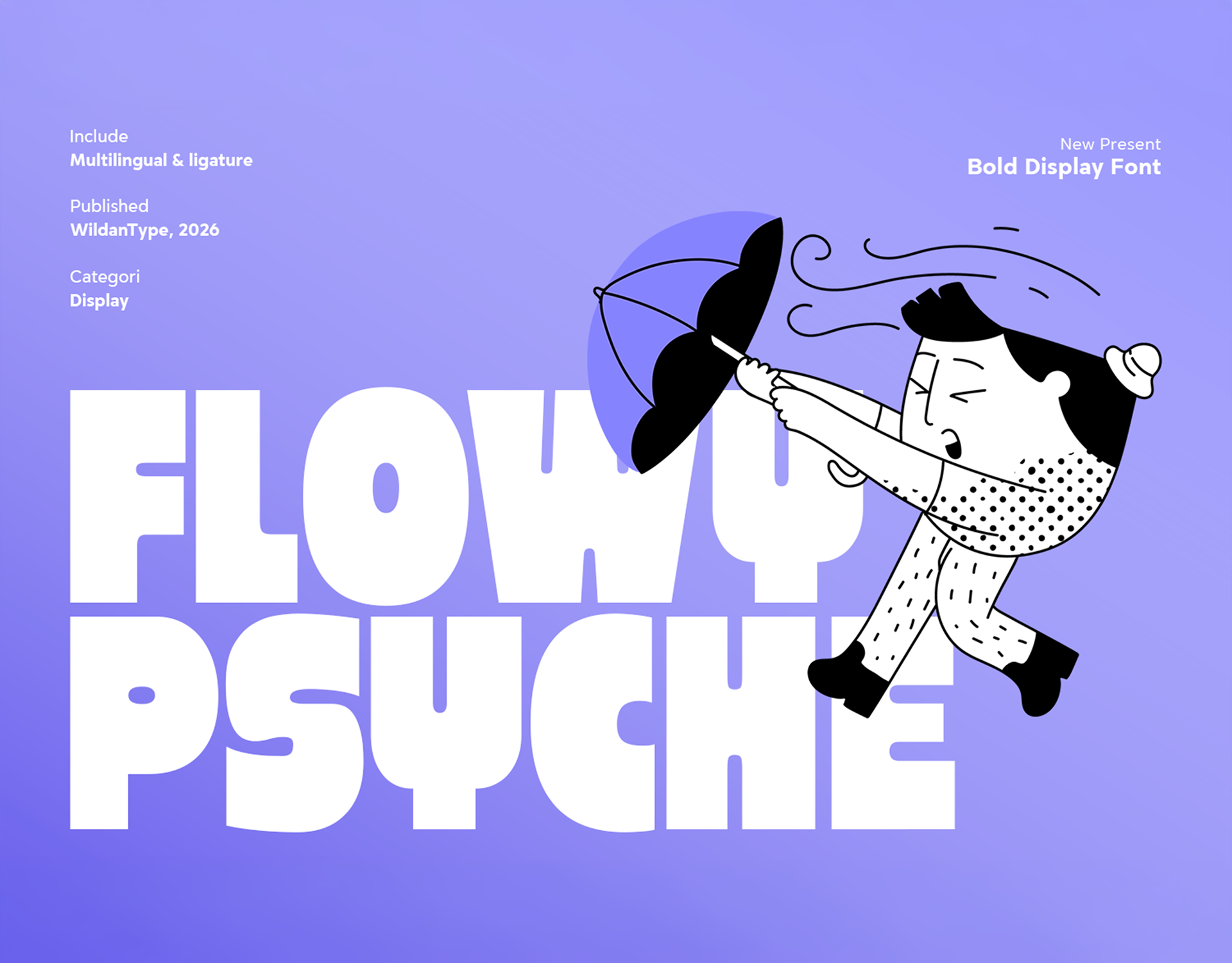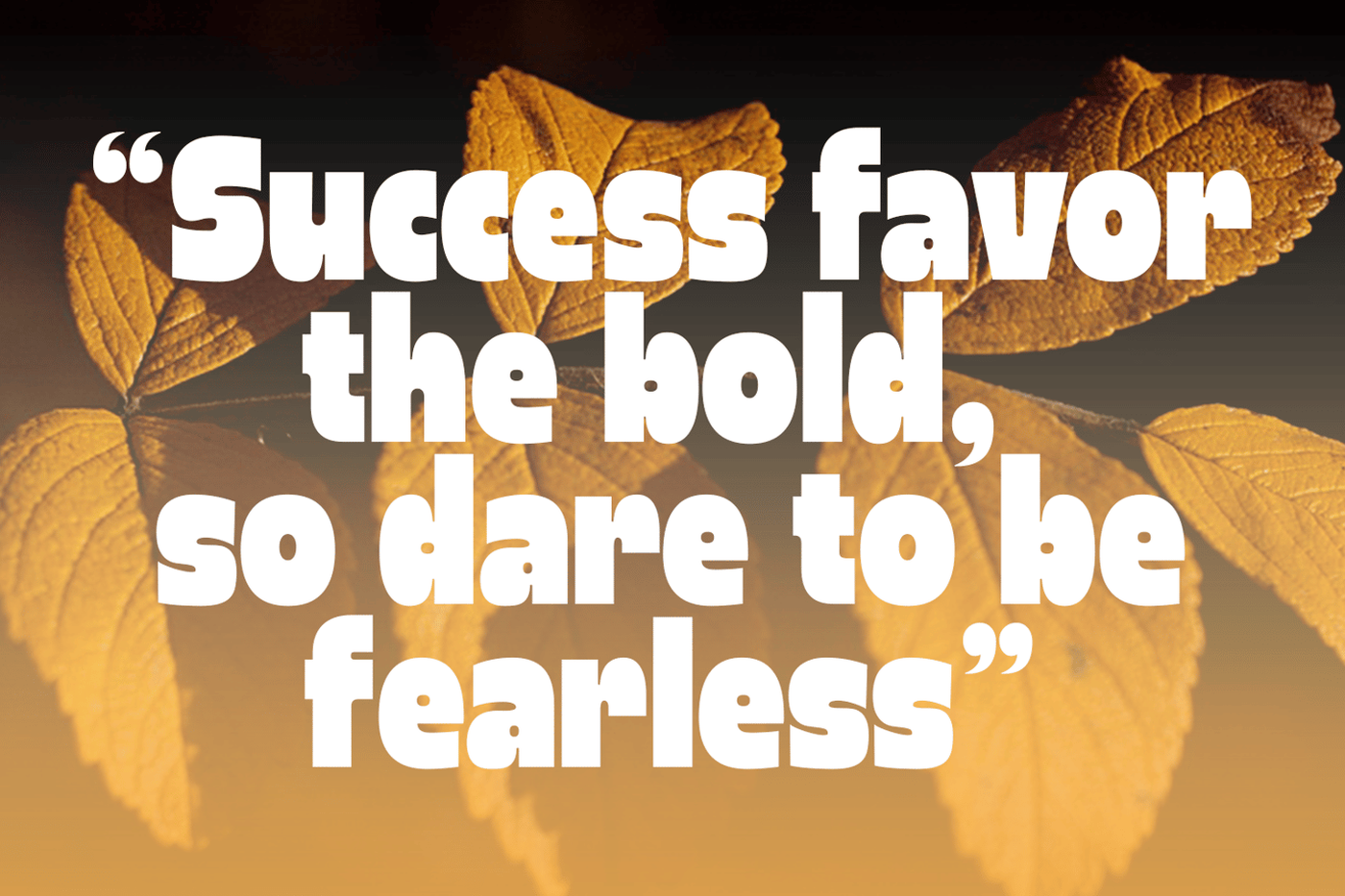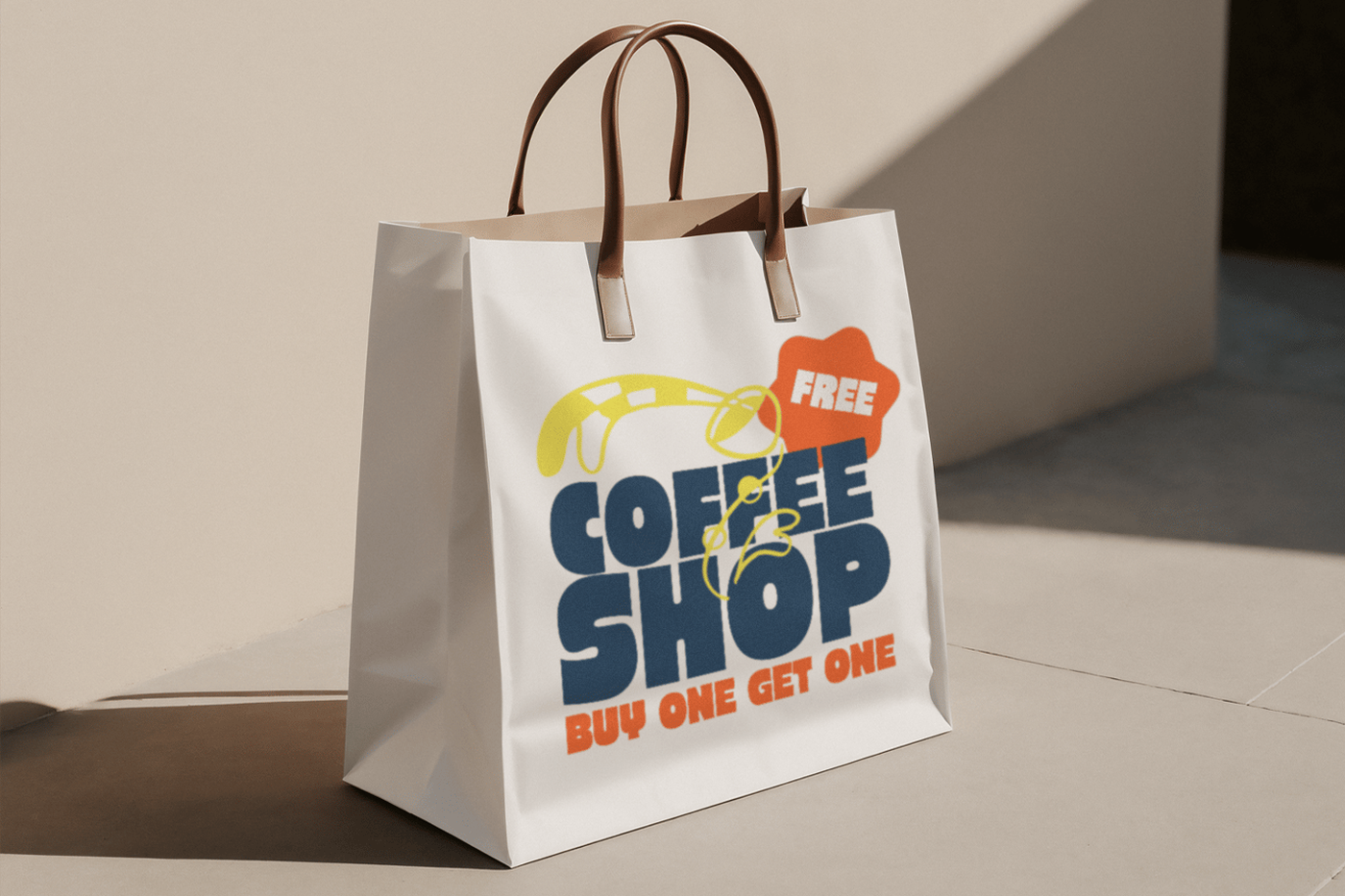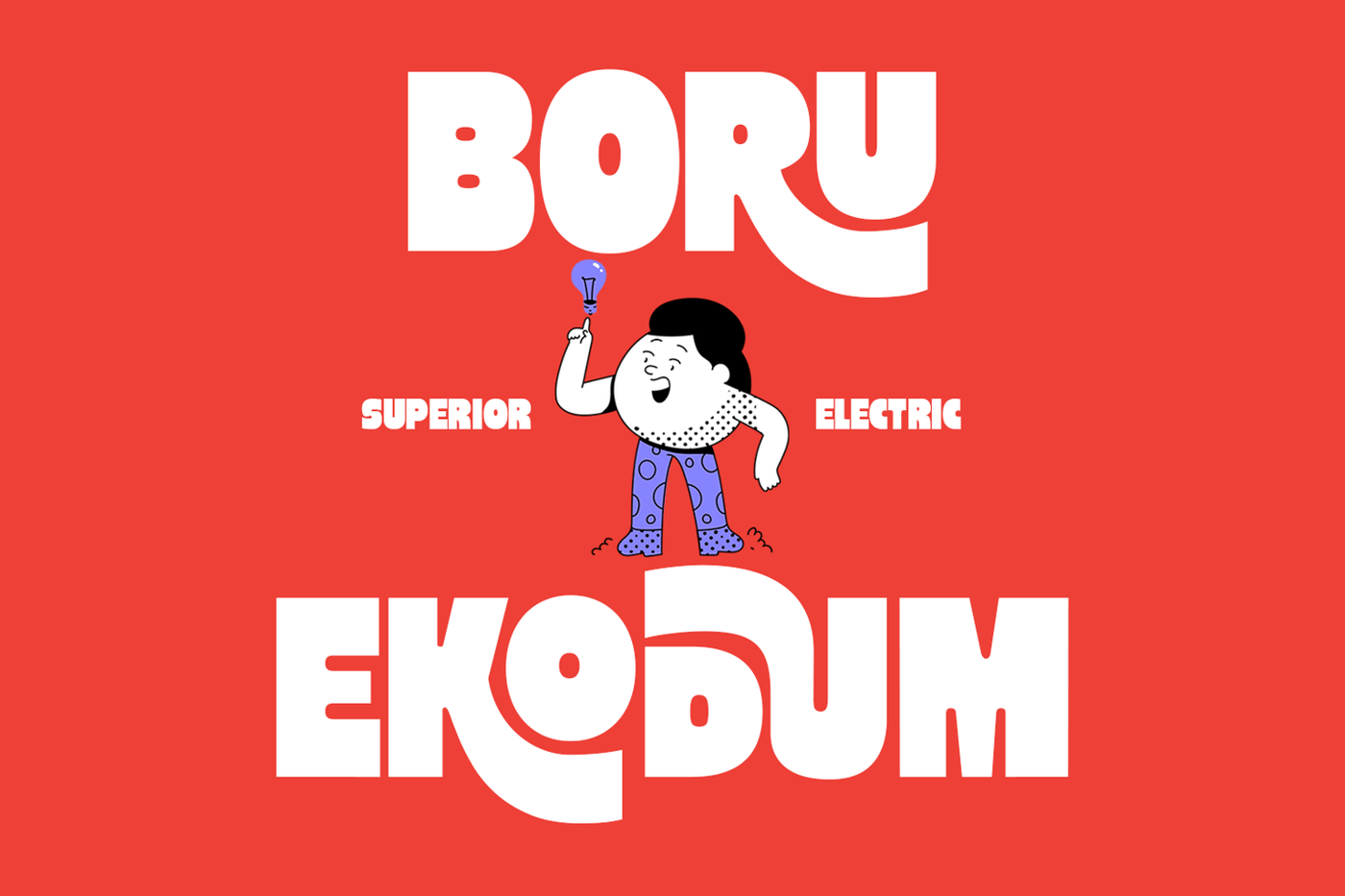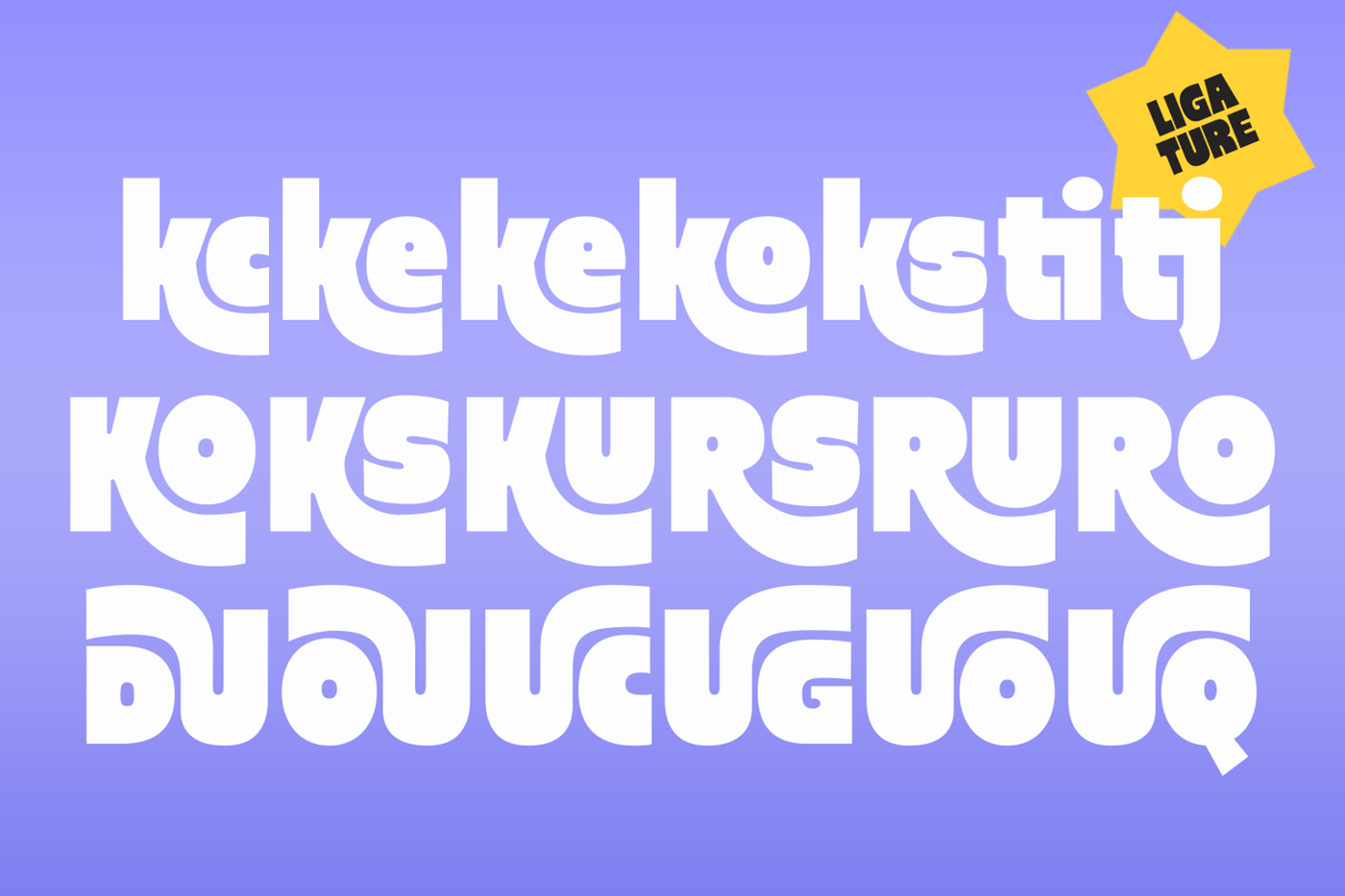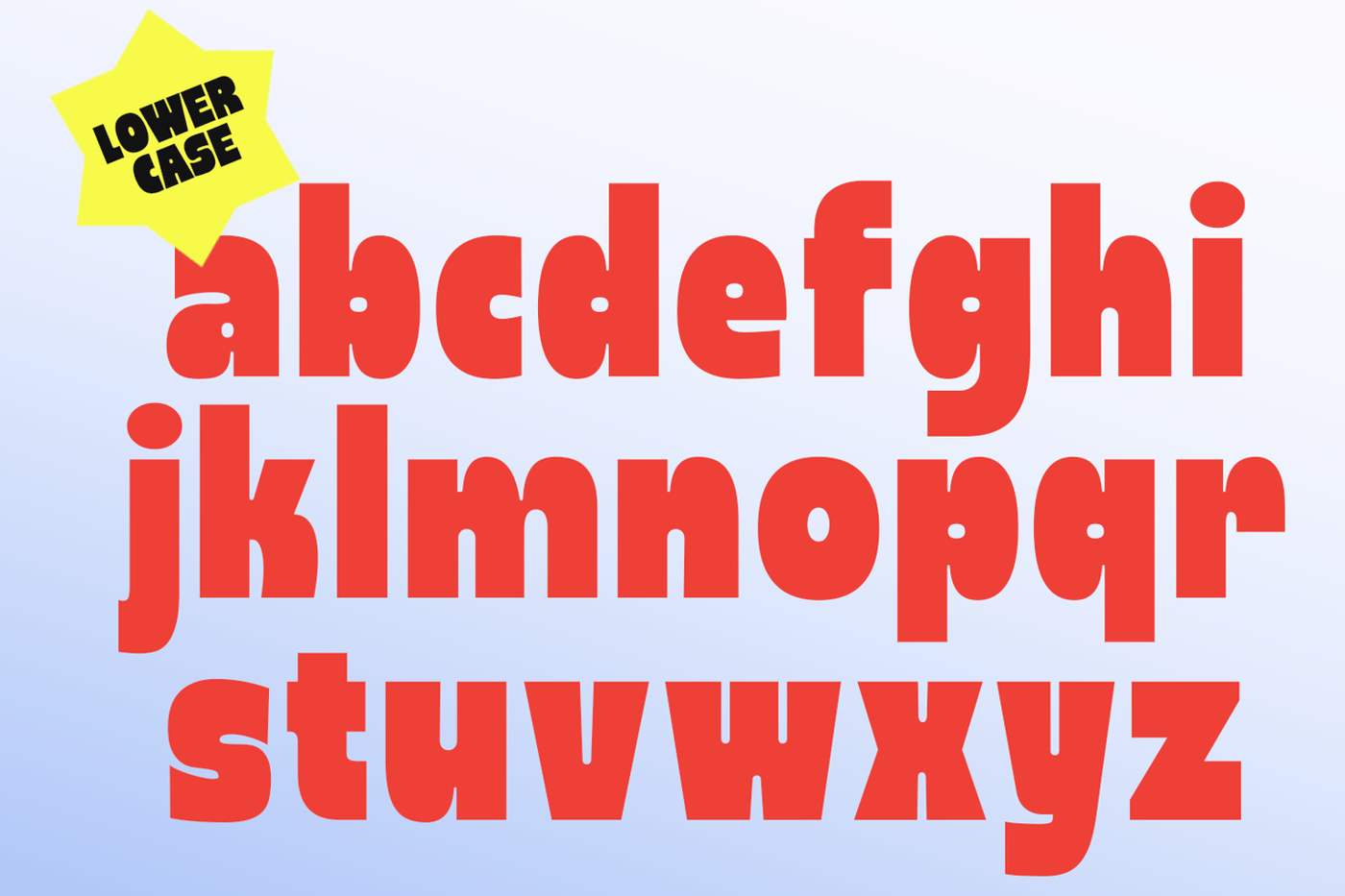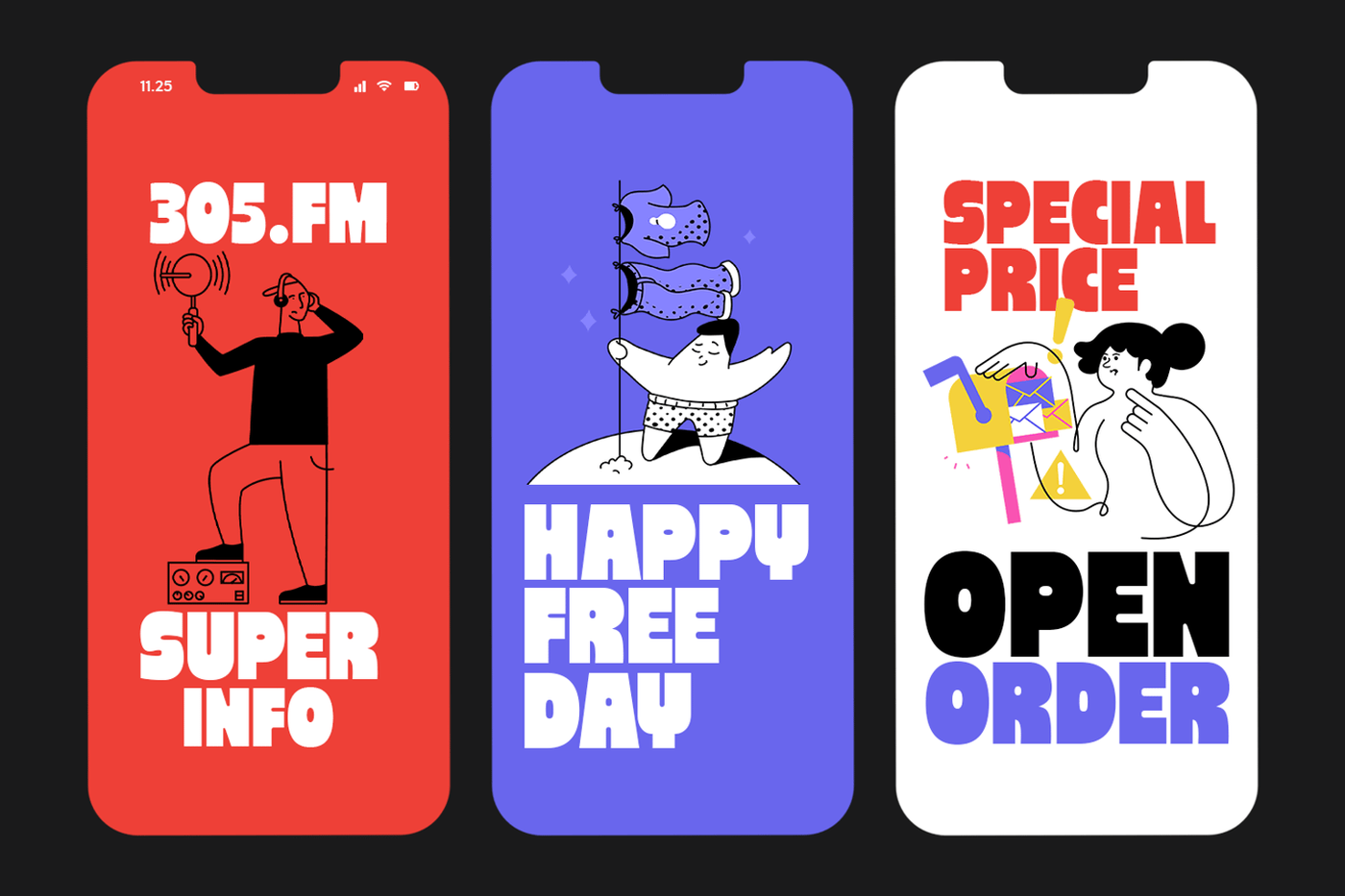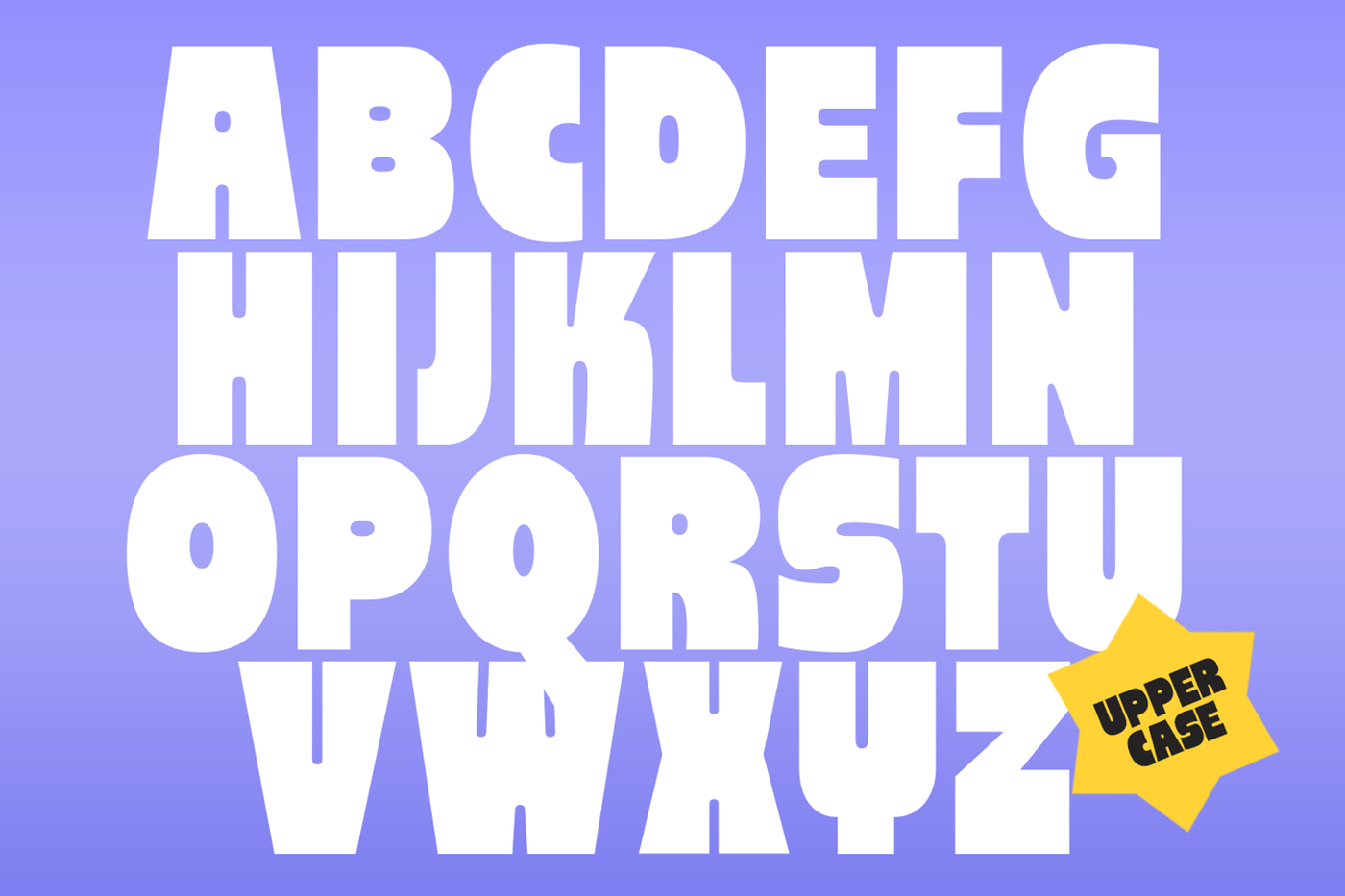
Flowy Psyche - Bold Font
Bring the soul of the seventies back to your designs with our Retro Psychedelic Display Font! Inspired by the vibrant music posters and pop culture of the 1970s, this font is all about bold curves, chunky characters, and a mesmerizing flow. Flowy Psyche isn’t just a typeface; it’s a visual statement. With its ultra-bold weight and artistic "liquified" swashes, your projects will instantly radiate an authentic, vintage "groovy" energy.
Font: Flowy Psyche